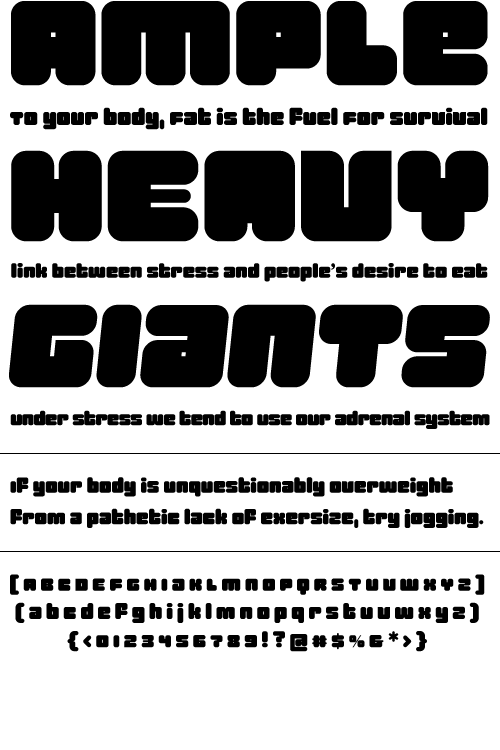
Plenti
Plenti is the fat font to add to your visual communication toolbox. Friendly, square, and quirky all at the same time. It is itching to get used on posters and websites.